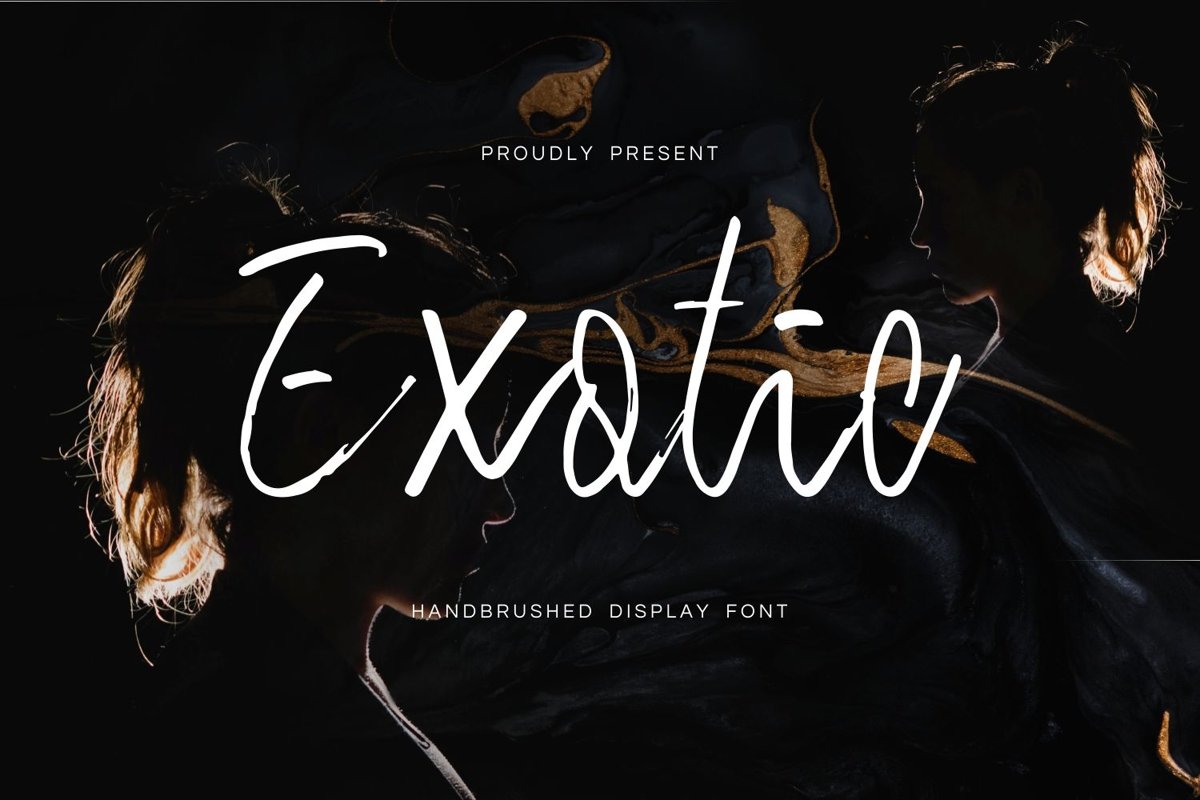
Exotic is a textured script typeface come with luxury themes. This font create with brush to make natural shape. It matches applies in some designs such as the logotype, brand, packaging, quotes, poster, shirt, book, invitation and more custom design. The features uppercase, lowercase, numeral, punctuation & symbol, multilingual support, PUA encoded (fully accessible without additional design software).